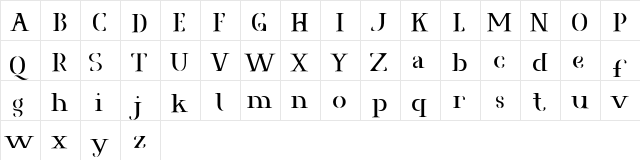
Agrasia Free Regular
| Designer | Muhammad Fathi Al Ghazi |
Design Context for Agrasia Free Typeface
Agrasia Free offers clean, dependable letterforms without strong stylistic allegiance, making it a practical choice for designers who need flexibility.
Pro Tip: Pair Agrasia Free with a font of contrasting weight or personality to build a more expressive typographic hierarchy.